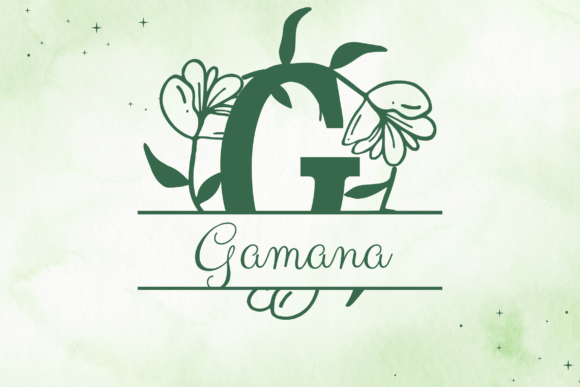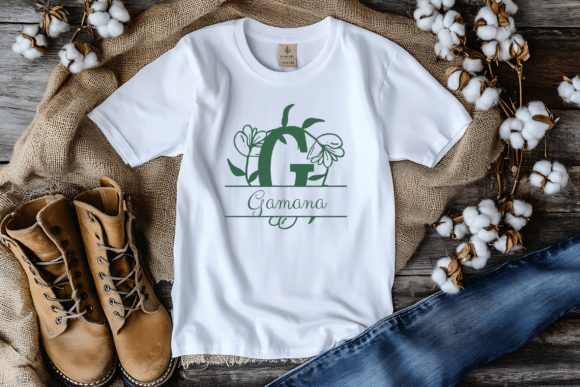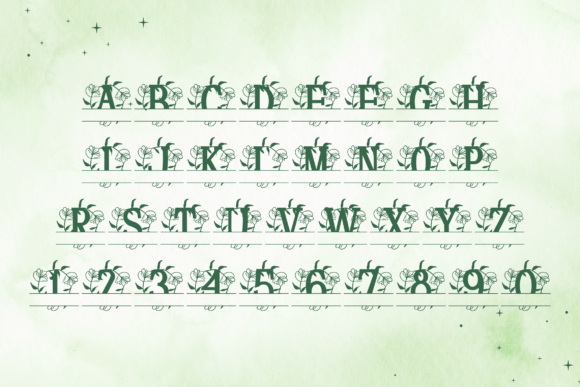
Introduction to Orvara Split Monogram Font
Have you ever found yourself stuck in a design rut, searching for the perfect font to elevate your creative project? Maybe you’re planning a wedding, designing a product label, or creating custom vinyl decals. Whatever the project, finding the right font can make all the difference. That’s where the Orvara Split Monogram Font comes in – a modern split serif font designed to make personalization a breeze.
With its clear horizontal split, you can easily place names, dates, or short phrases right in the center of the letter. The result is a beautifully balanced design that’s perfect for a variety of applications, from wedding suites to boutique branding. Whether you’re a seasoned designer or a DIY enthusiast, the Orvara Split Monogram Font is a valuable addition to your design resource toolkit.
Key Features of Orvara Split Monogram Font
- Features a unique monogram design with a split layout, perfect for personalizing gifts, invitations, and other custom items.
Honest Review: Orvara Split Monogram Font
I recently stumbled upon the Orvara Split Monogram Font, and I’m excited to share my thoughts with fellow designers. This free download is a fantastic addition to any design resource, offering a unique and creative way to express your brand’s personality.
- ✨ High-quality vector graphics that maintain their crispness even when scaled up
- ✨ A transparent background option that allows for seamless integration into various design backgrounds
- ✨ A wide range of customization options, making it easy to adapt the font to your specific creative project needs
However, I do have a few minor gripes:
- ⚠️ Limited character set, which may not be suitable for extended text-based designs
- ⚠️ Some letters may require manual tweaking to achieve perfect alignment
Overall, I’m impressed with the Orvara Split Monogram Font. Its unique design and high-quality vector graphics make it an excellent choice for designers looking to add a touch of sophistication to their creative projects. While it may have some limitations, I believe the benefits far outweigh the drawbacks.
The Orvara Split Monogram Font is a high-quality design resource ideal for creative projects. Its unique split monogram style makes it perfect for personal branding, weddings, and other special occasions.
The Orvara Split Monogram Font is commonly used in wedding invitations, personal branding, and special occasion designs. Its unique style makes it perfect for creating eye-catching and memorable designs.